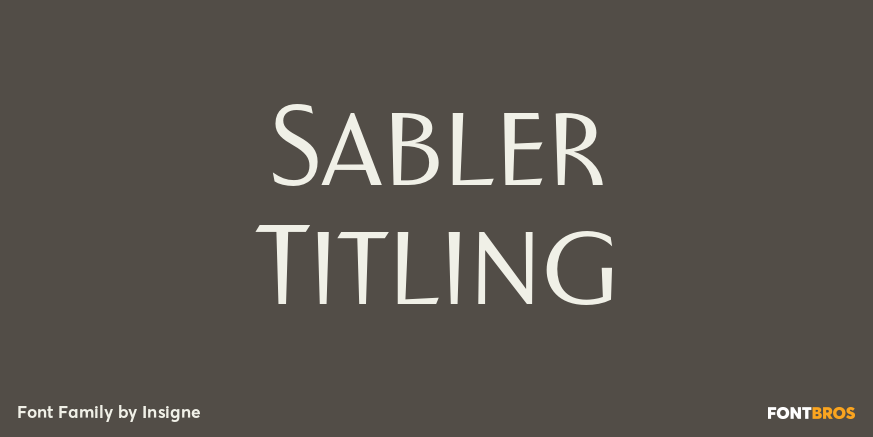
Sabler Titling
About Sabler Titling
Make the right statement with the elegant Sabler Titling. This showstopping font features an inherent grace combined with the classic style of the Art Deco period. The subtle beauty of its letters is highlighted by the typeface\’s stems, which taper towards…